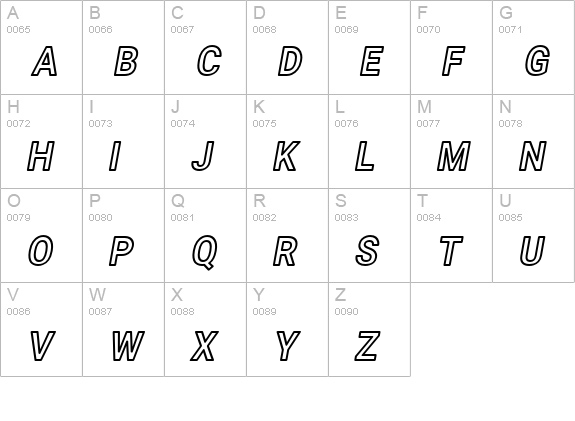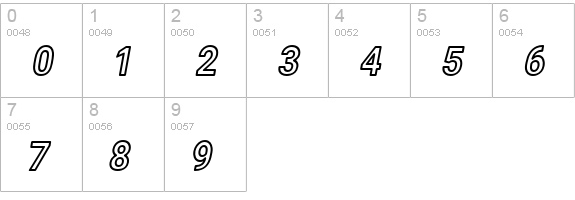
Asimov Narrow Outline Italic Font Details
Asimov Narrow Outline Italic is a distinctive, condensed-width, italic variant in the Asimov typeface family \xE2\x80\x94 well suited to design and typography projects.
Introducing the captivating Asimov Narrow Outline Italic font, a typeface that effortlessly merges elegance and modernity. With its sleek and slender lines, this font exudes a sense of sophistication, making it perfect for a wide range of design projects. Asimov Narrow Outline Italic font strikes the perfect balance between legibility and artistic flair. Its italicized form adds a touch of dynamic energy to any text, creating a visually appealing composition that captures attention. Whether used for headlines, titles, or body text, this font will elevate your designs to new heights. One of the standout features of Asimov Narrow Outline Italic font is its versatility. It seamlessly adapts to various contexts, be it print or digital media, branding or advertising, giving your projects a professional and polished look. Its narrow outline structure adds a unique touch, making it ideal for projects that require a contemporary and minimalistic aesthetic. What sets Asimov Narrow Outline Italic font apart is its availability as a free download at FontsMarket.com. This means that designers and creatives alike can access this exceptional font without any additional cost. Now, you can unleash your creativity without limitations, exploring the endless possibilities that this font offers. So, whether you're designing a magazine layout, creating a logo, or working on a web design project, Asimov Narrow Outline Italic font is the perfect companion. Its clean lines, elegant curves, and italicized form will effortlessly elevate your designs, leaving a lasting impression on your audience. Download the Asimov Narrow Outline Italic font today from FontsMarket.com and transform your designs into visual masterpieces. Let your creativity soar with this exceptional font, and watch as your projects come to life with a touch of sophistication and style.